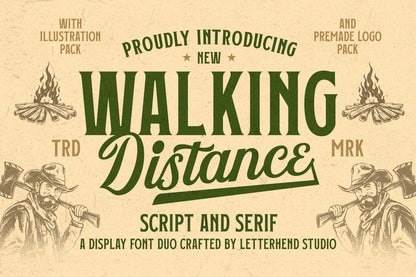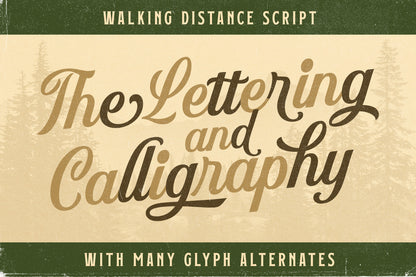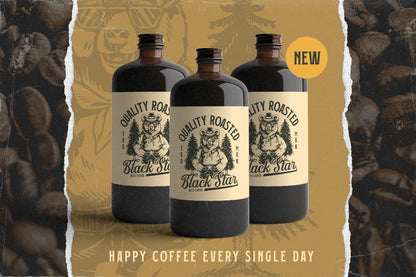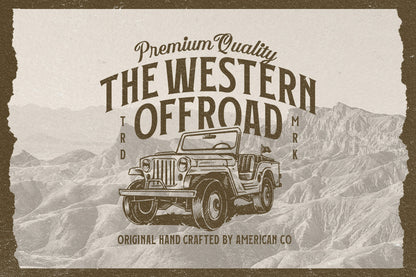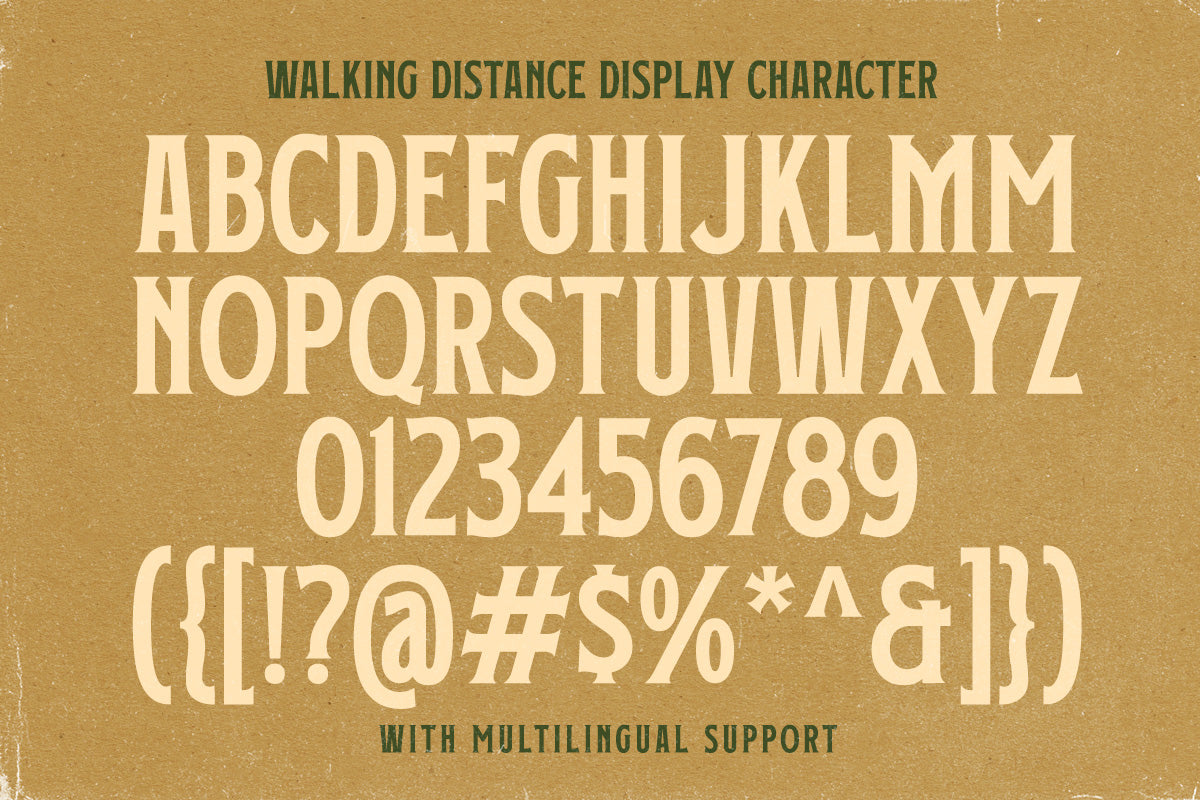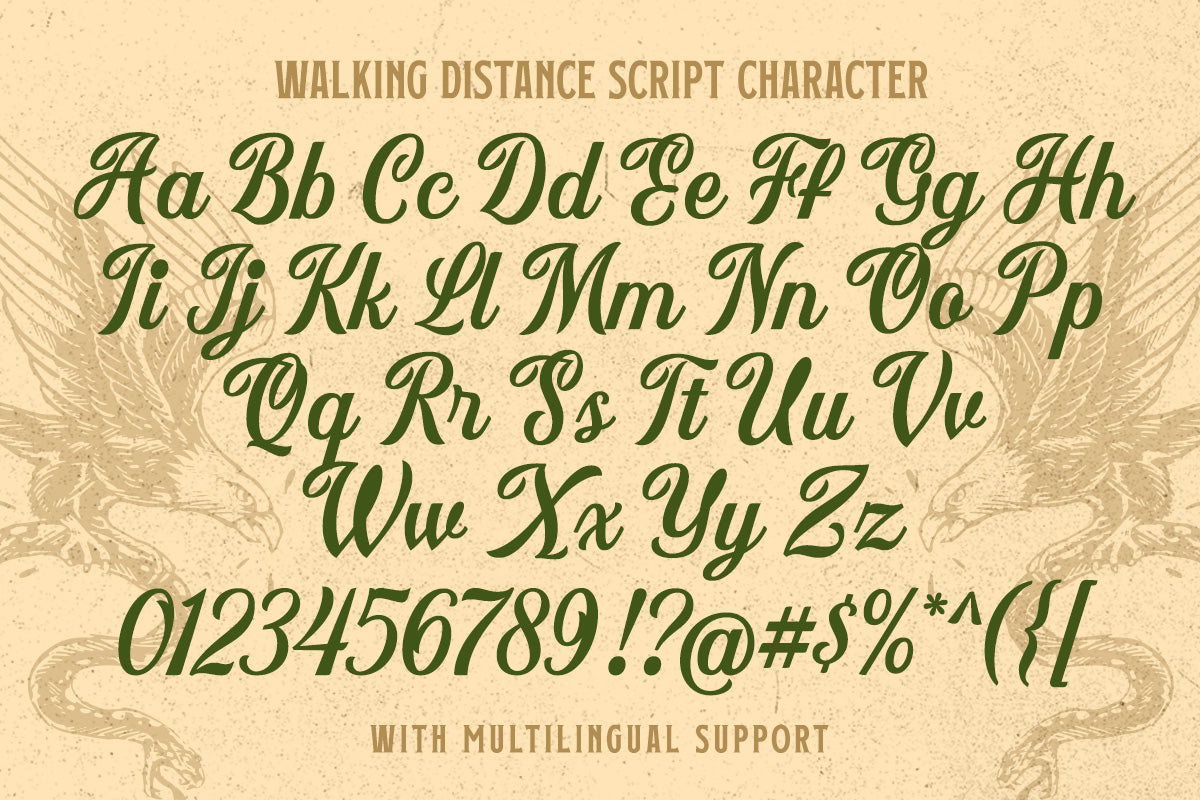
Walking Distance - a serif font that blends perfectly with its scriptcounterpart. The vintage feel is really perfect for those who need a typeface for logos, apparel, branding, packaging, advertising etc. This typeface comes in uppercase, lowercase, punctuation, symbols & numerals, a bunch of alternates, ligatures, and more. It also support multiple languages and is already PUA encoded.
Uppercase & lowercase
Numbers and punctuation
Alternates & Ligatures
Multilingual Support